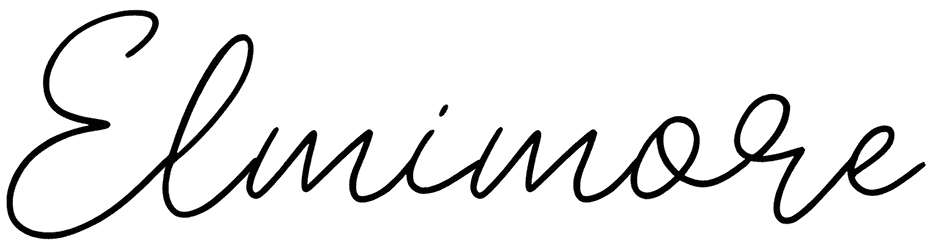
Elmimore Font
Elmimore has a special charm that portrays an image of exquisite beauty. The simplicity of this handwritten font with balanced elegance can create a feminine feel in your texts. Therefore, although the designer’s focus has not been on enhancing readability, it can have a strong presence in various projects.
So, if you are looking for a neat script font with rounded edges to create an impressive and useful effect on posters, packaging, and album covers, Elmimore is your lucky spot.